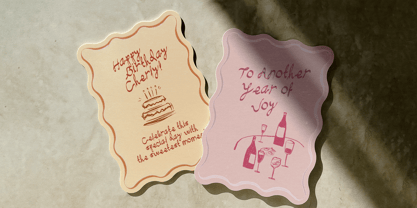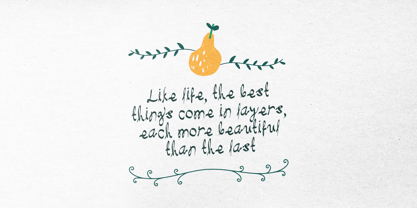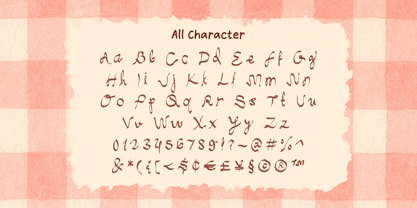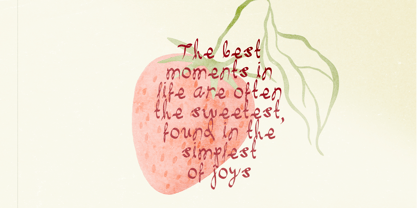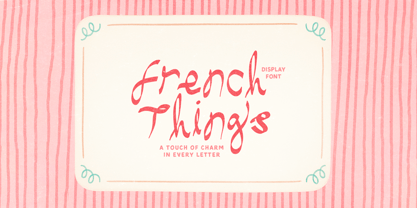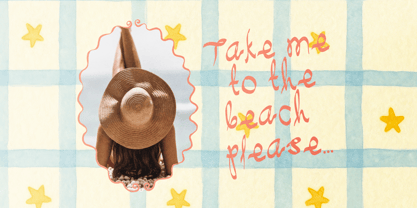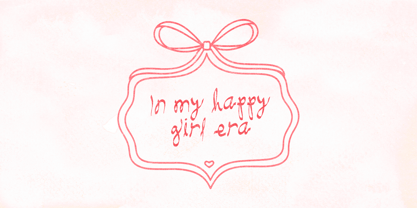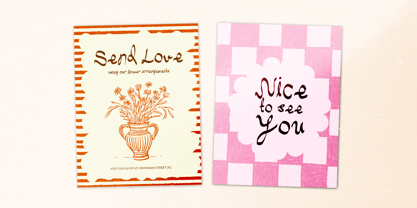
French Things
French Things is a playful yet elegant font, combining charm and femininity in every letter. Its sweet and delightful style makes it perfect for designs that need a touch of sophistication with a joyful twist. Ideal for branding, invitations, and logos, this font brings a warm, stylish touch to any project.